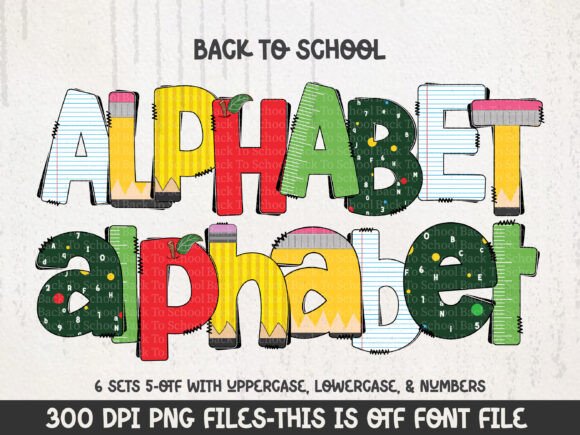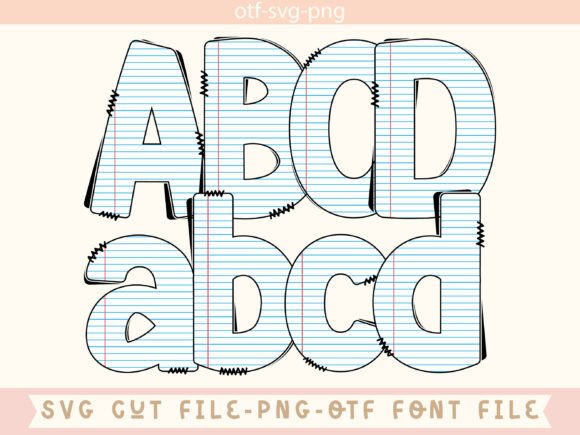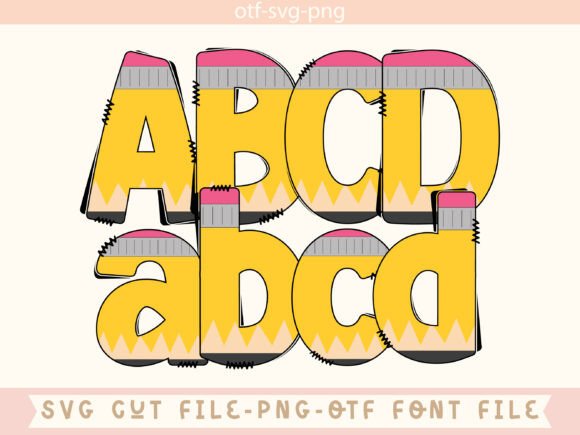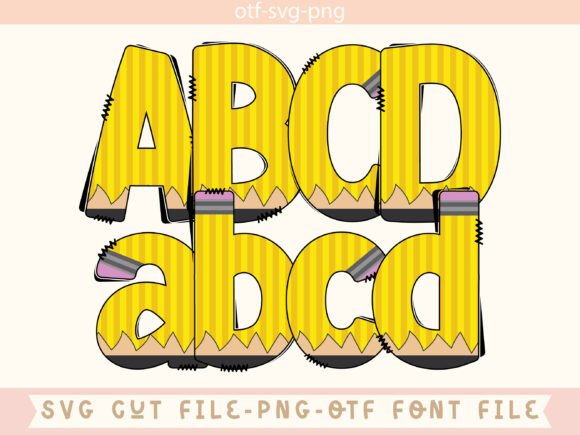
Back to School Font
Back To School Bundle is a cool lettered and display font for schools utilize specific fonts that align with their branding or creative projects. By combining specific colors with carefully chosen typefaces, T-shirts, branding, custom DIY craft projects, quotes featuring elements and more.Volley Ball The black version of this font is compatible with Cricut Design Space and other cutting machines.Note! The color version of this font is only compatible with certain design programs incl. PhotoShop, Illustrator, Silhouette, and Inkscape. The OTF and/or TTF files of the color version are not compatible with Cricut. For more information on how to use this type of font please check our Ultimate Font Guide .